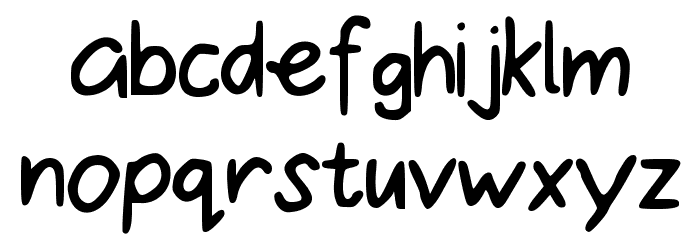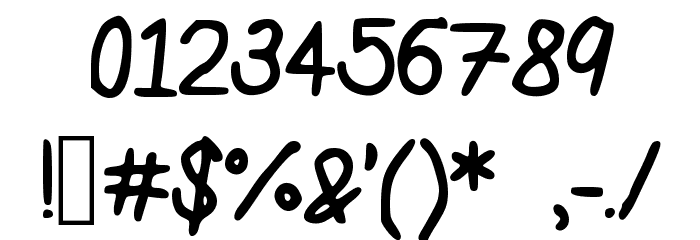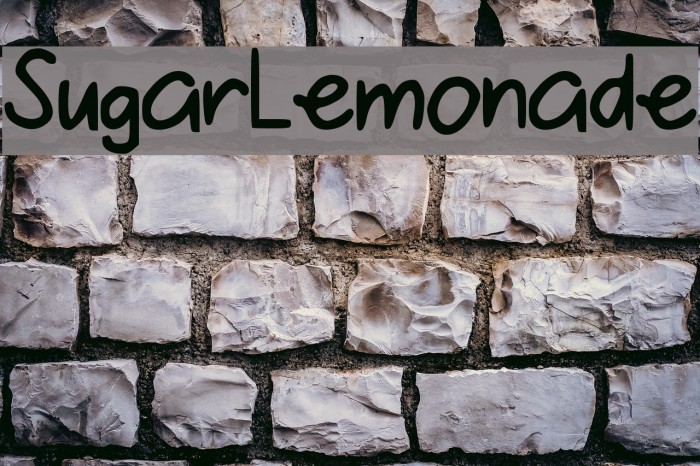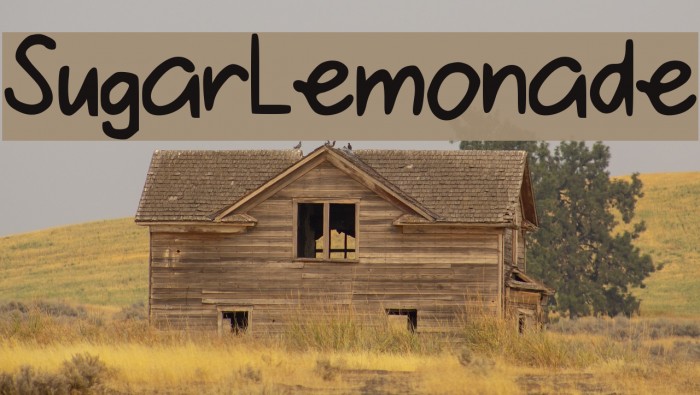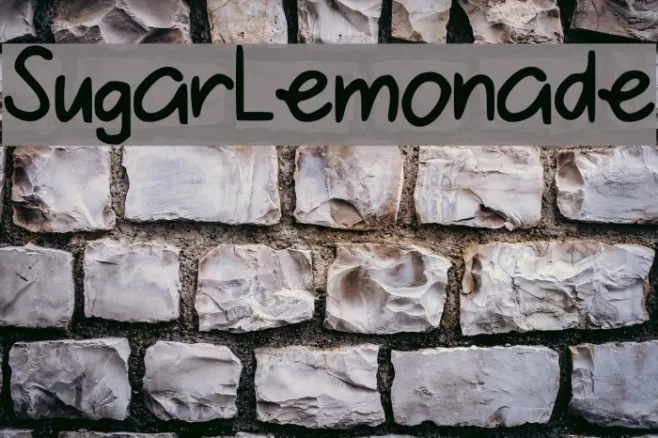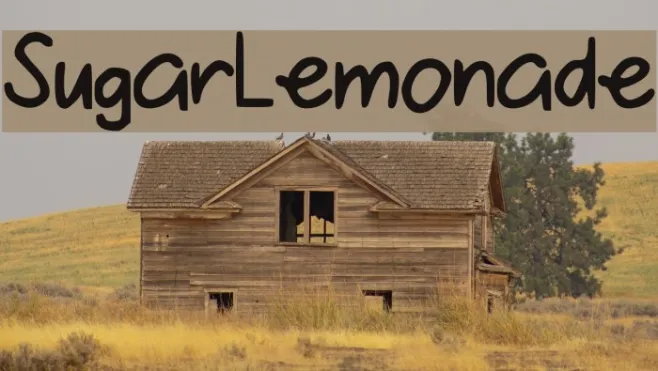
SugarLemonade
This playful and whimsical font features a handwritten style with a casual, friendly appearance. The characters are slightly rounded with a consistent stroke width, giving it a smooth and approachable look. The uppercase and lowercase letters maintain a uniform height, while the numbers and special characters are designed to complement the overall style. The font's informal nature makes it ideal for projects that require a personal touch or a fun, lighthearted vibe. Its legibility and charm make it suitable for a variety of creative applications.
A playful, handwritten font with a casual and friendly appearance.
- Proposed Projects: Ideal for children's books, greeting cards, playful branding, and social media graphics.
- Overall Style: Playful
- Use Case: Headlines, Logos, Social media graphics